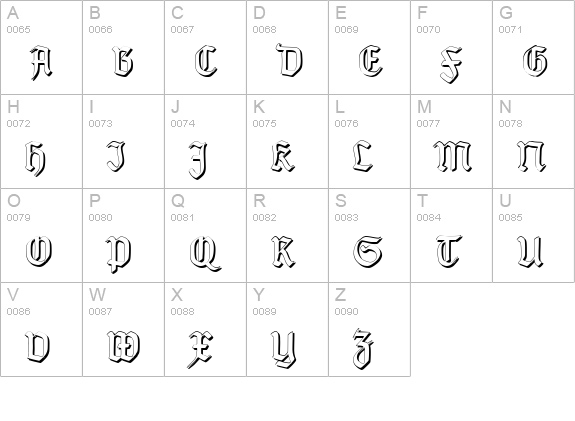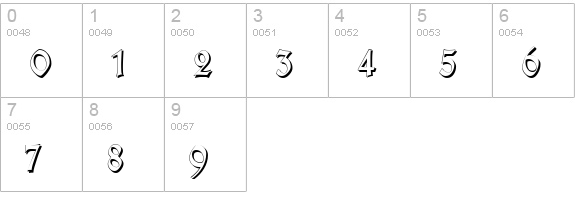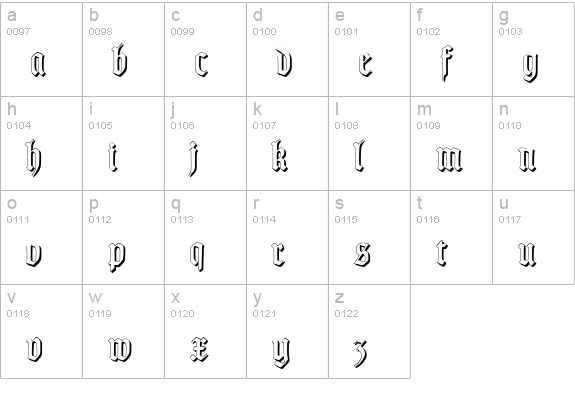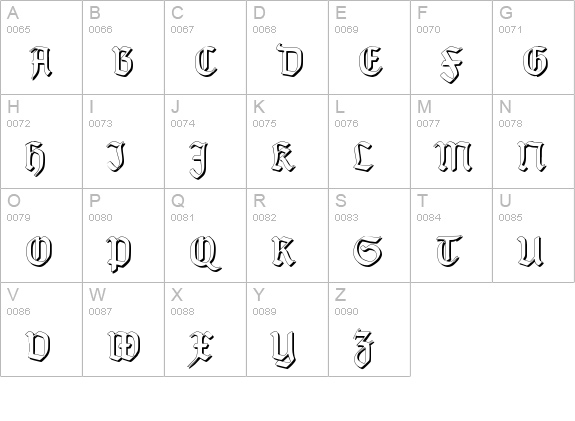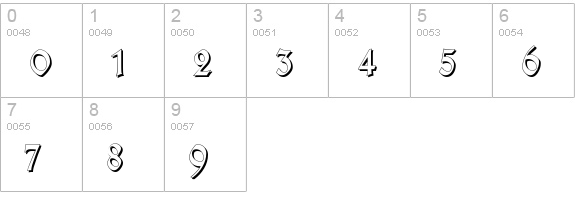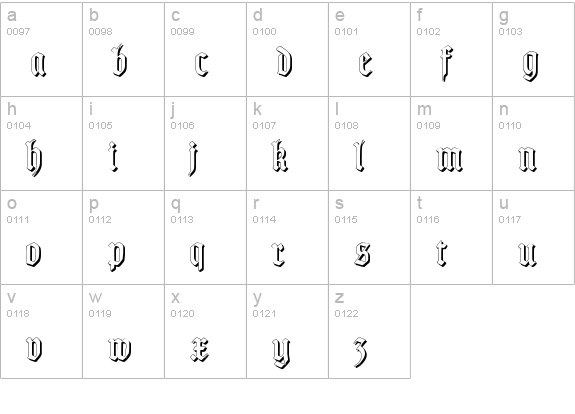
TypographerGotisch Schatten S font is a beautifully designed typeface that exudes elegance and sophistication. Its unique Gothic style, characterized by intricate details and delicate serifs, makes it a perfect choice for adding a touch of vintage charm to your designs. This font showcases a stunning combination of bold and shadowed letterforms, which adds depth and dimension to any project. Its carefully crafted curves and sharp edges create a visually striking display that captures attention and leaves a lasting impression. Whether you're designing logos, posters, invitations, or any other creative project, TypographerGotisch Schatten S font effortlessly enhances the overall aesthetic, giving your work a distinct and timeless appeal. Its versatility allows it to be used in a variety of themes, from classic to contemporary, making it a valuable asset for designers of all styles. The best part is that TypographerGotisch Schatten S font is available for free download at FontsMarket.com. This means that you can easily access and use this remarkable typeface without any restrictions. Whether you're a professional designer or a hobbyist, this font provides you with the opportunity to elevate your creations without breaking the bank. So why wait? Embrace the beauty and elegance of TypographerGotisch Schatten S font and let it bring your designs to life. Download it for free today at FontsMarket.com and unlock a world of creative possibilities.